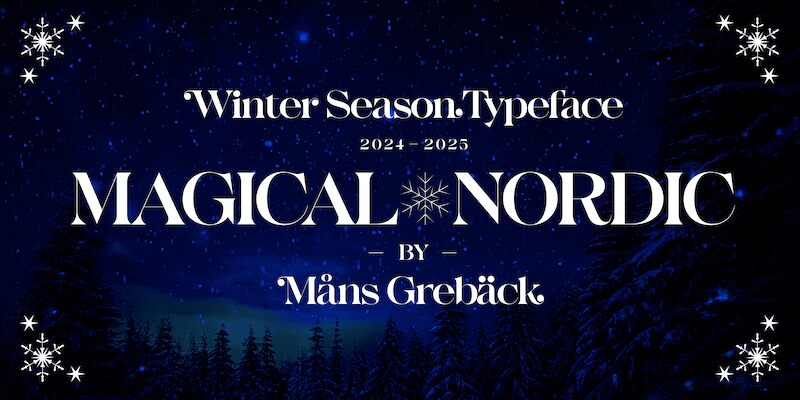
Magical Nordic font is a sophisticated typeface designed by Mans Grebäck that exudes elegance and modernity. Crafted with clean geometric lines, this font provides a minimalistic and futuristic vibe. Its appearance resembles Latin characters, which gives it an added normal feel unlike other rune fonts.
You can create snowflakes and stars by using one or multiple asterisks (*).
Example: XMAS*****GIFT